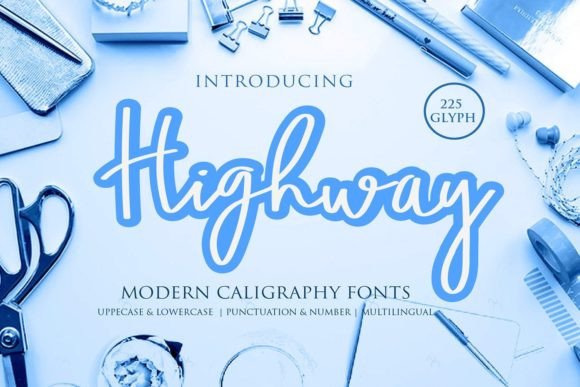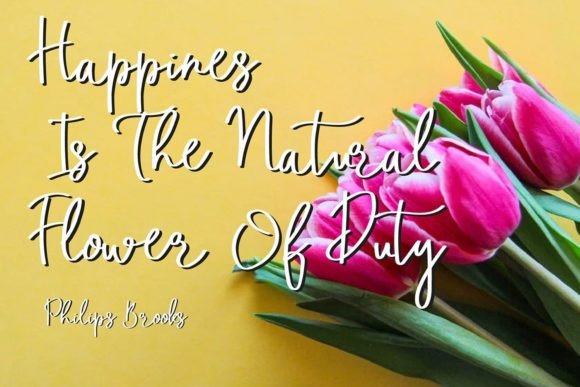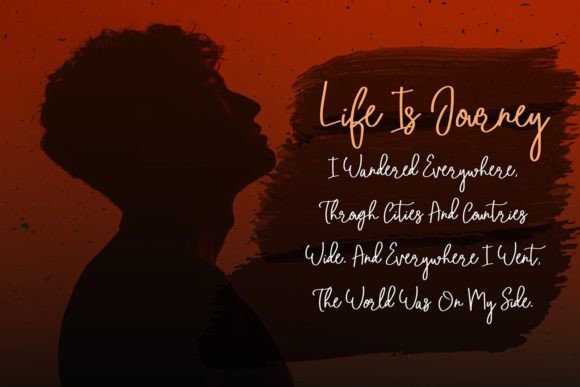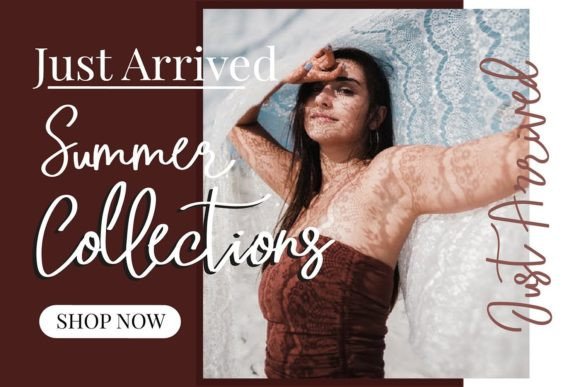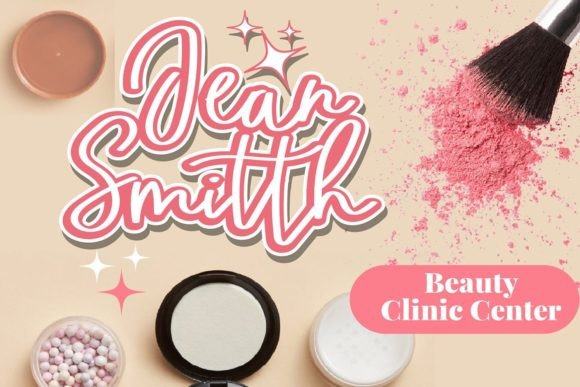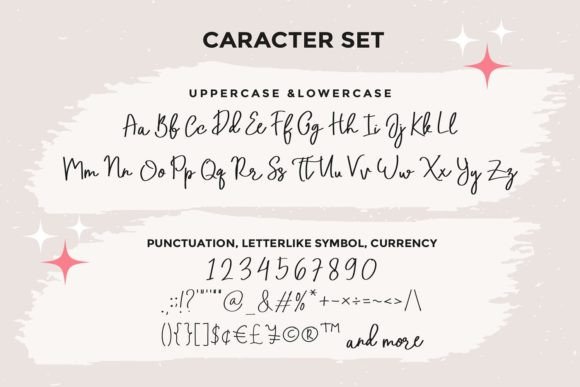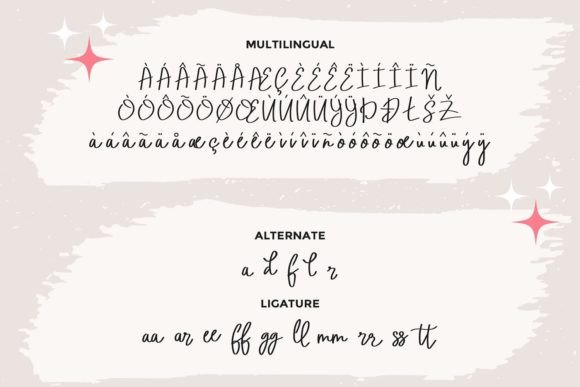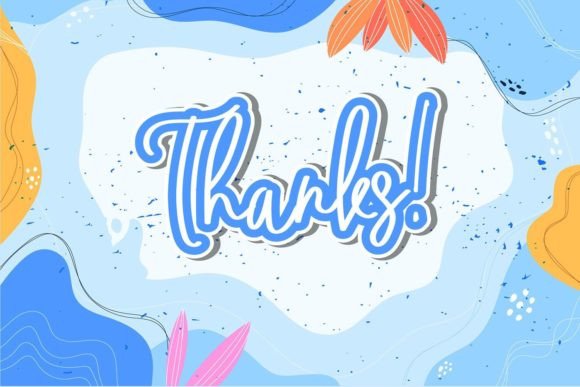
Highway Font
About Highway Font
Highway is a versatile script font designed to elevate a wide range of creative projects. Whether you’re working on logos, branding projects, homeware designs, product packaging, mugs, quotes, posters, shopping bags, t-shirts, book covers, name cards, invitation cards, greeting cards, labels, photography, watermarks, or special events, Highway brings a touch of beautiful handwriting taste to your designs.
This font exudes a unique and stylish script, making it suitable for both professional and creative applications. Its adaptability allows it to seamlessly integrate into various design contexts, ensuring that your projects stand out with a distinctive and aesthetic appeal.
For branding and logo projects, Highway adds a personal and handcrafted feel, creating a memorable visual identity for your brand. In homeware designs and product packaging, the font’s elegance enhances the overall aesthetic, making your products more visually appealing. The versatility of Highway extends to quotes, posters, and t-shirts, where its expressive script can convey messages with style and flair.
Book covers, name cards, and invitation cards benefit from Highway’s graceful letterforms, bringing a sense of sophistication to printed materials. Additionally, the font’s application in labels, photography, watermarks, and special events contributes to an overall cohesive and visually pleasing design.
Whether you’re working on commercial projects or personal endeavors, Highway serves as a valuable tool for designers seeking a script font that combines beauty and functionality. Its ability to enhance the visual appeal of a diverse array of projects makes it a go-to choice for those who appreciate the artistry of beautiful handwriting in their designs.